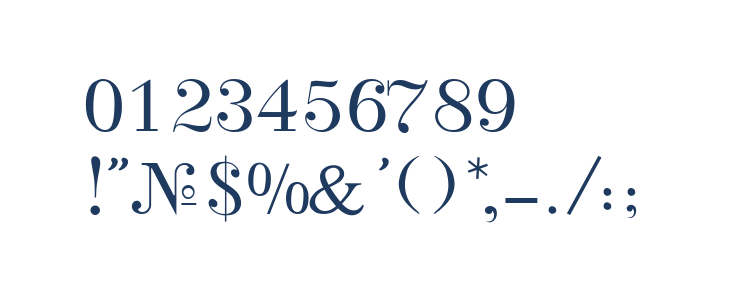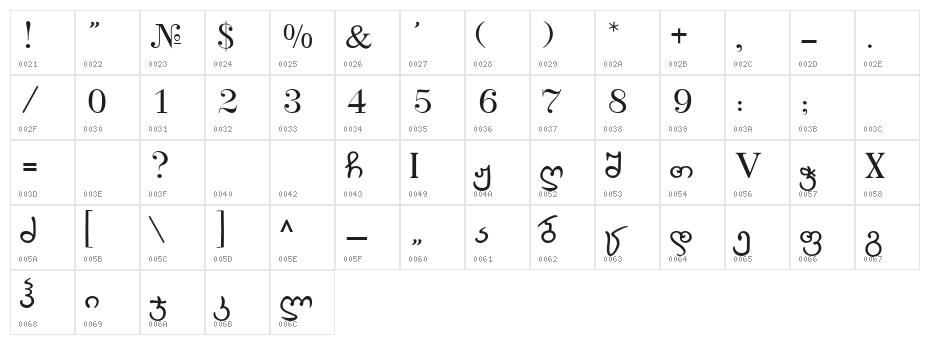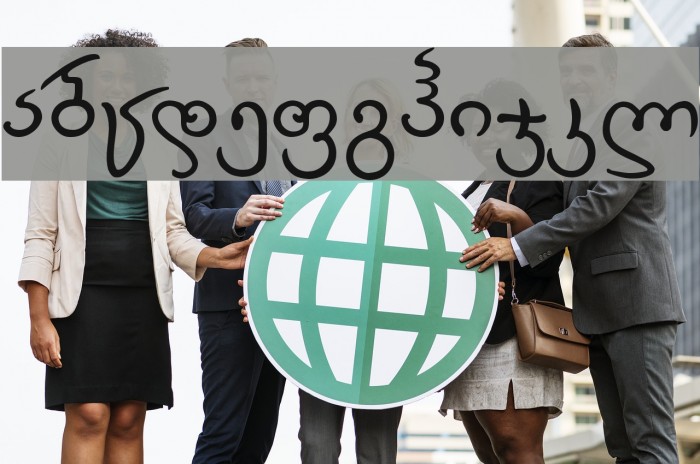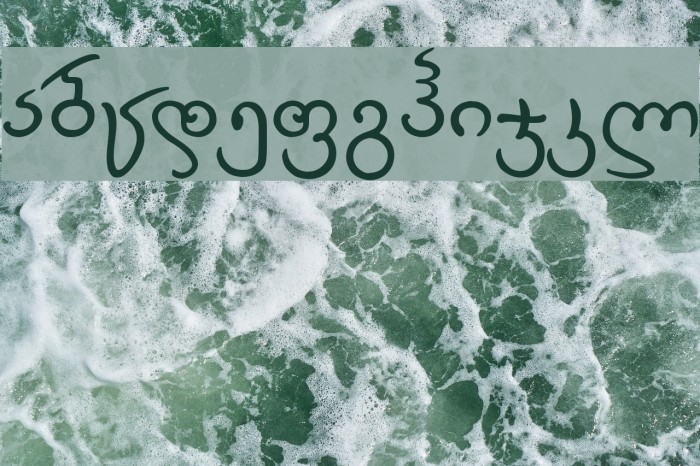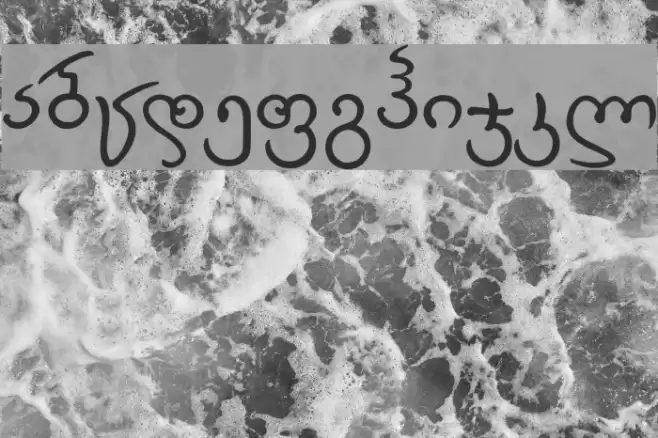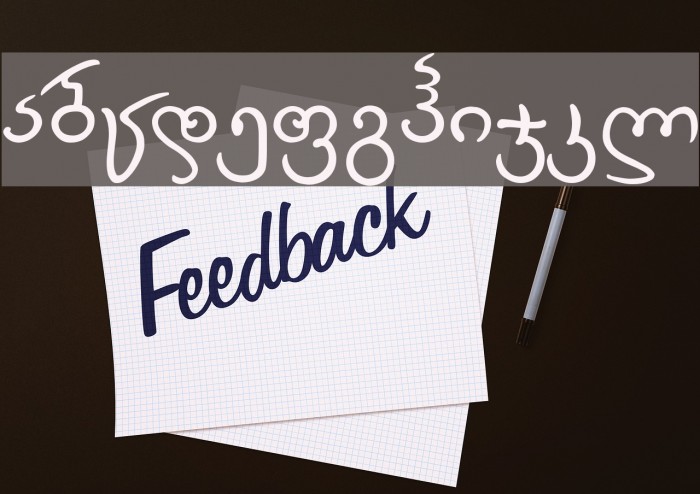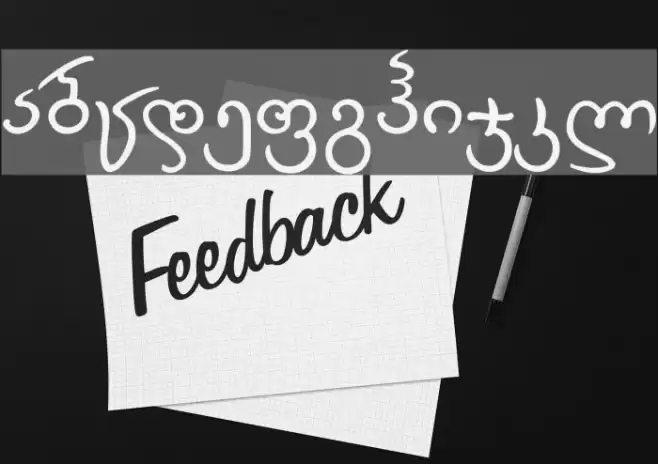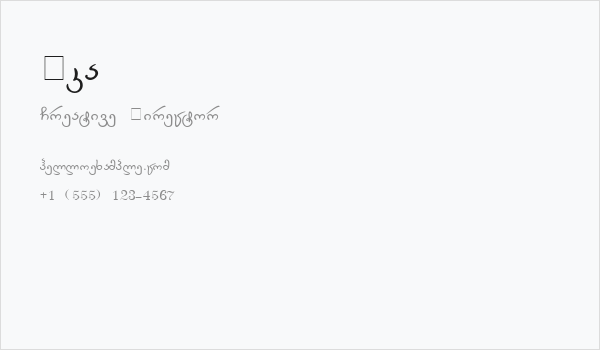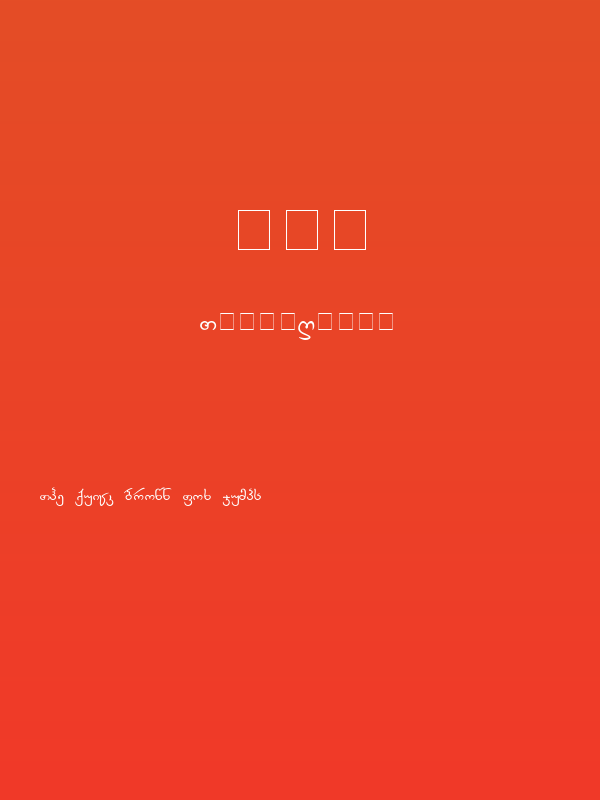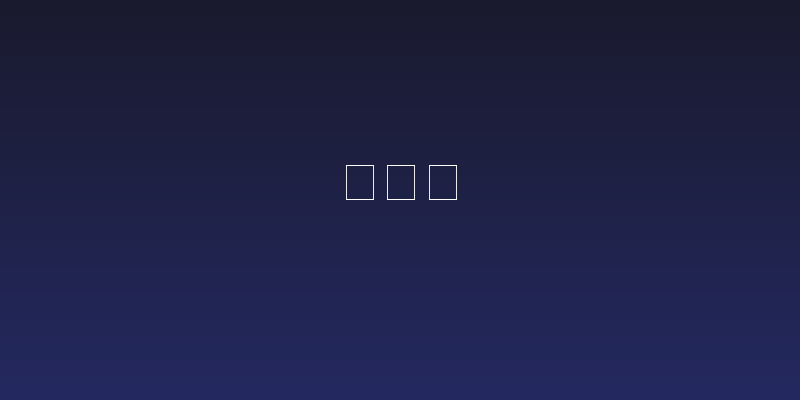
Eka Font
Eka Description
This font features a unique blend of modern and traditional elements, characterized by its elegant curves and distinctive serifs. The uppercase letters exhibit a refined and sophisticated style, while the lowercase letters maintain a playful and approachable appearance. The numerals are clear and easy to read, making them suitable for various applications. Special characters are thoughtfully designed, adding to the font's versatility. The overall aesthetic is both artistic and functional, making it ideal for creative projects that require a touch of elegance.